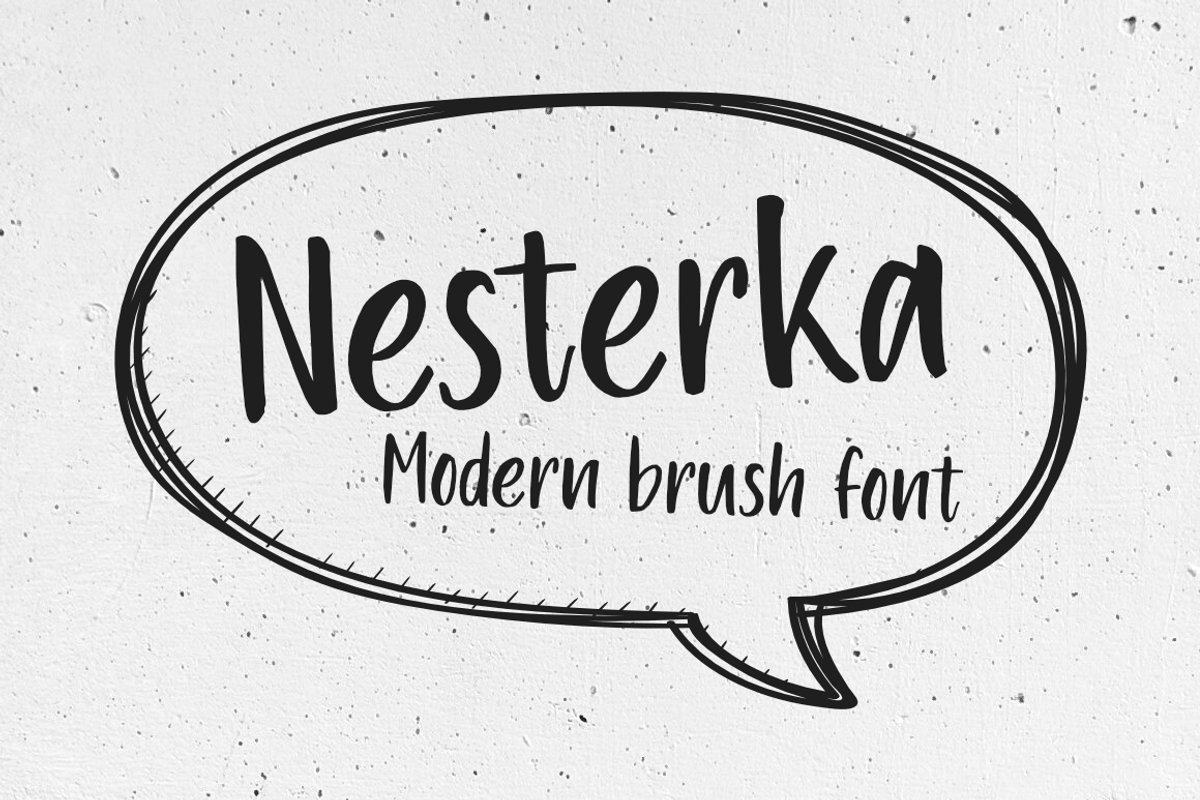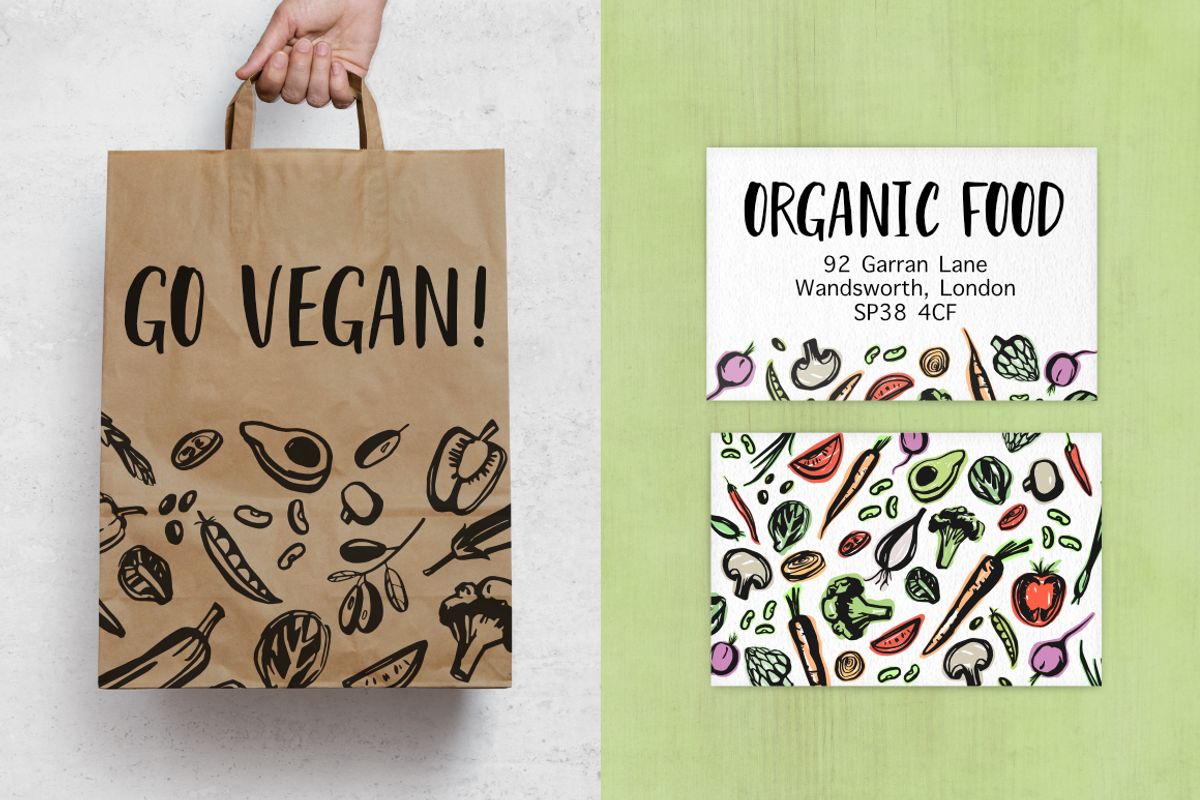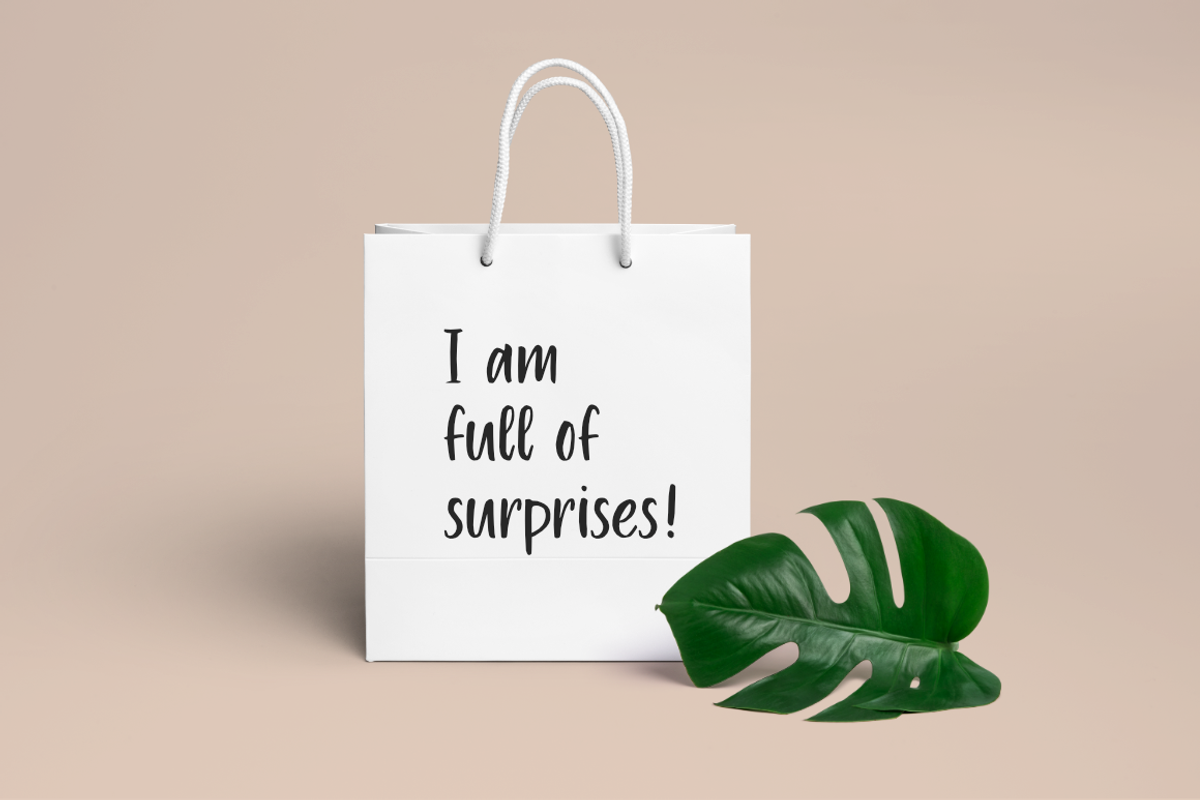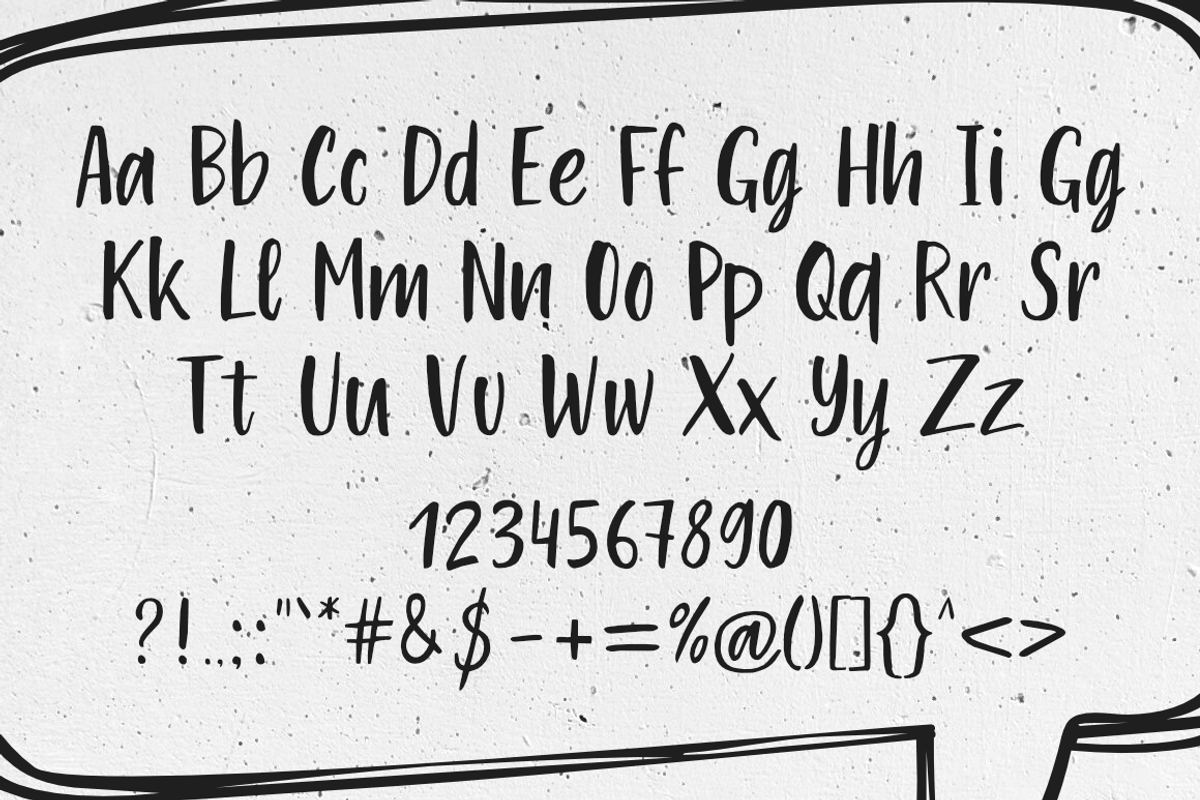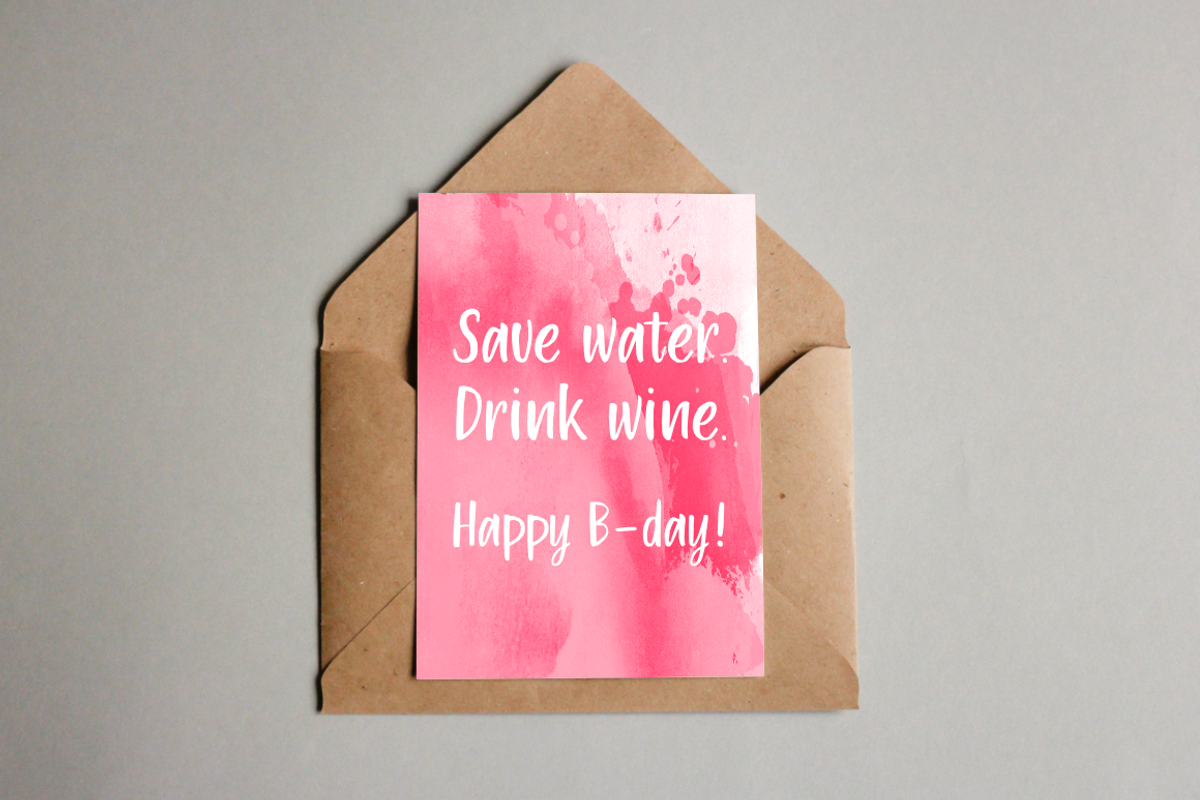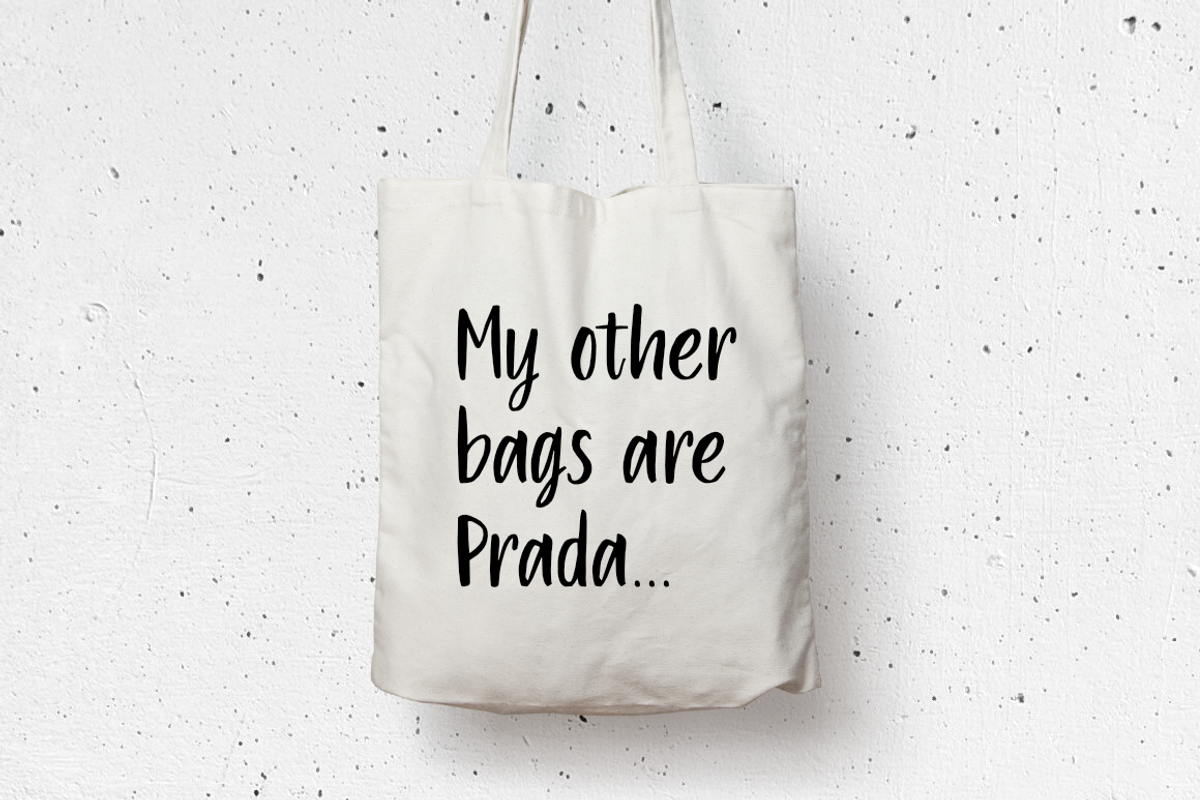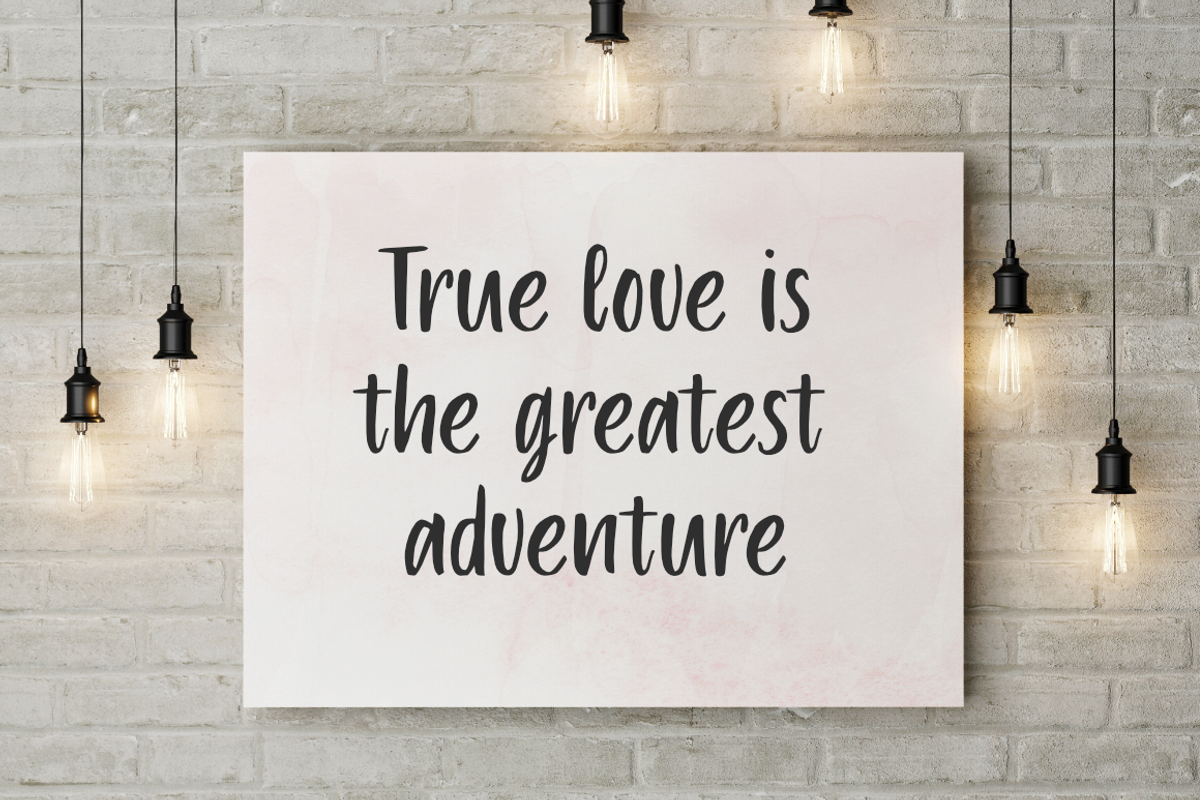
Nesterka Font
Nesterka Font by Oksana Nalivaiko is a font selected for branding, posters, packaging, typography.
Why Nesterka Font is worth a look
Nesterka Font by Oksana Nalivaiko fits naturally into Branding, posters, packaging, typography.